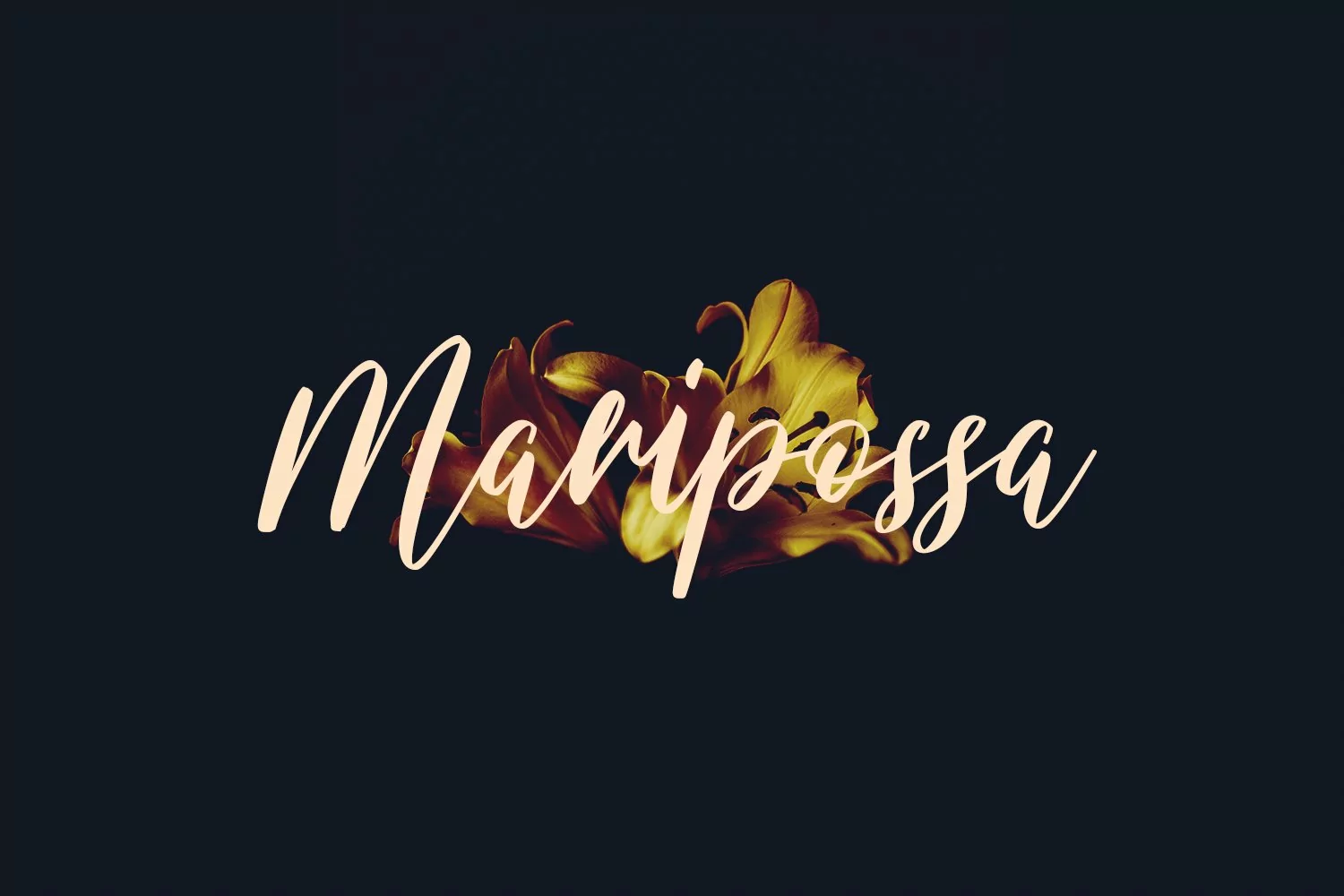
Slowtyfill is casual beauty script font, with high contrast thin stroke, slanted and fun character. It has Opentype features ligatures of character, To give you an extra creative work. Slowtyfill beauty script font support multilingual more than 100+ language. This font is good for logo design, Social media, Movie Titles, Books Titles, a short text even a long text letter and good for your secondary text font with sans or serif. Make a stunning work with Slowtyfill font.
Slowtyfill